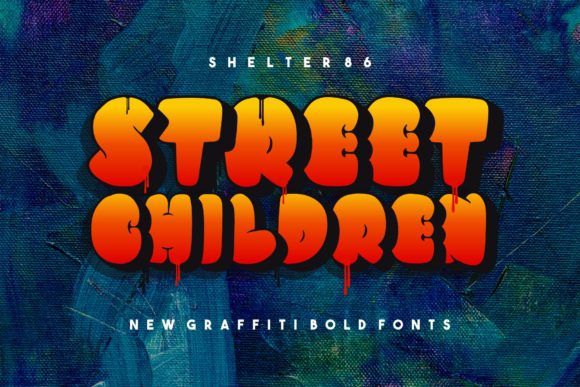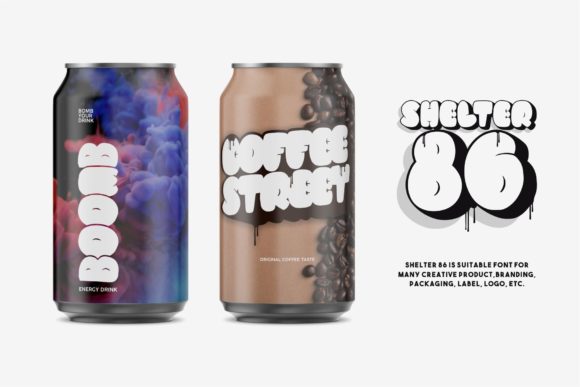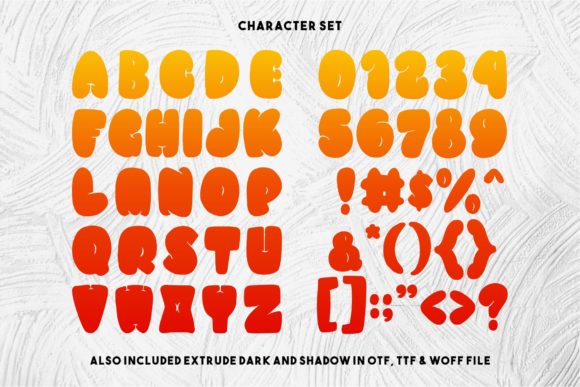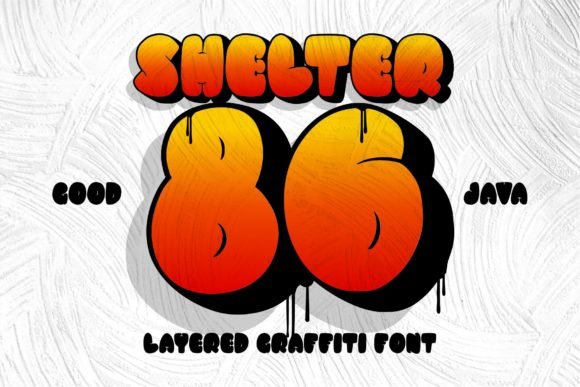
Introduction to Shelter 86 Font
Inspired by the urban landscape, this graffiti-themed font will put a modern spin on any design project.
Key Features of Shelter 86 Font